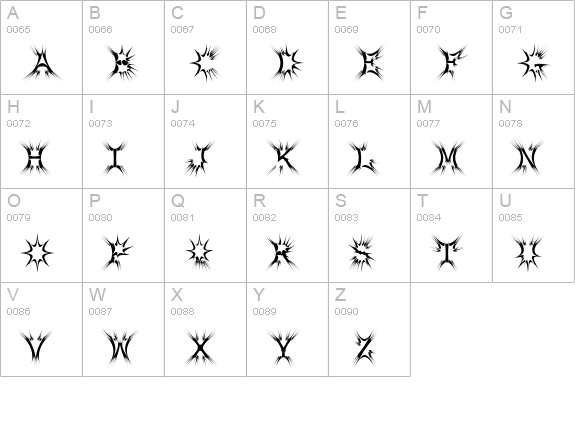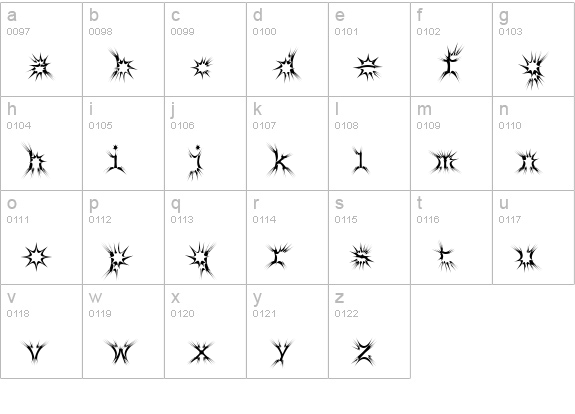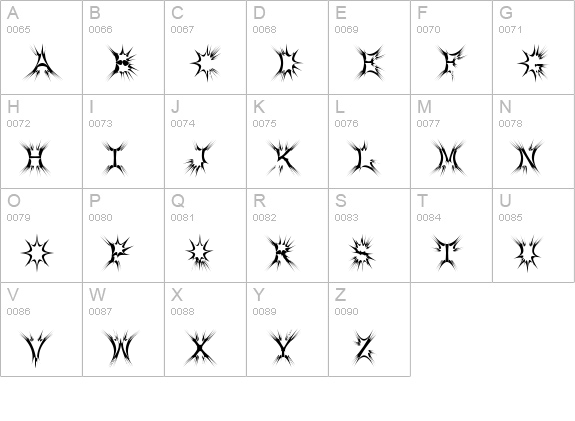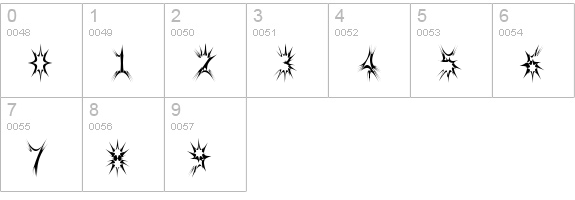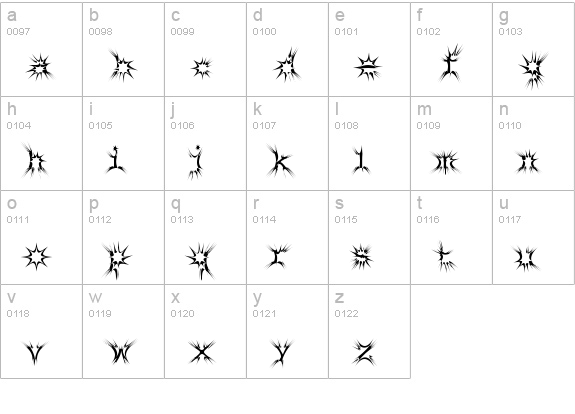
louD Font Details
The louD font is a bold and attention-grabbing typeface that is perfect for making a statement in your designs. With its strong, thick lines and exaggerated letterforms, louD demands to be noticed and is sure to leave a lasting impression. This font is ideal for headlines, posters, and any design project where you want to make a bold statement. Best of all, louD is completely free to download at FontsMarket.com. Whether you're a professional designer or just looking to add some flair to your personal projects, louD is a versatile and eye-catching font that is sure to elevate your designs. Download louD today and make your words loud and clear!